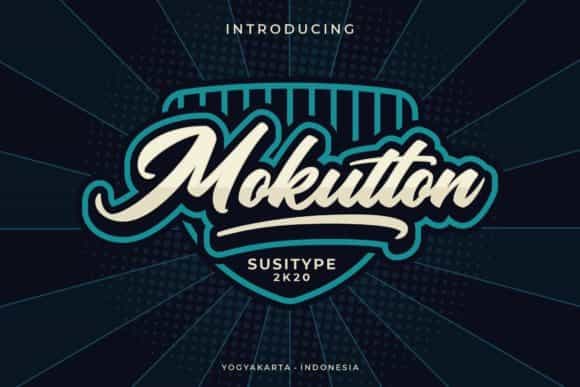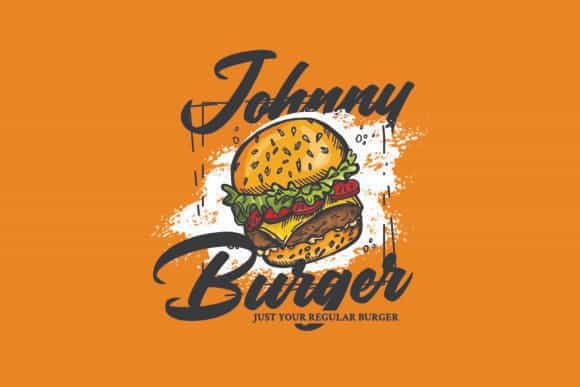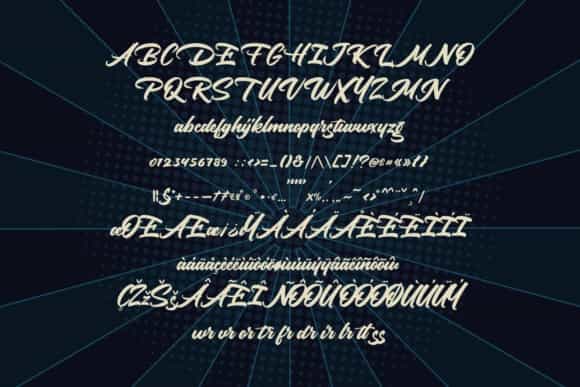
A handwritten script font labeled Mokutton Calligraphy, this font can become the apple of anyone’s eye. It’s high praying monk, but also modern and restoring ancient ways. This beautiful script font is a stylish tribute to the traditions of old handwriting. In this way that font looks stunning! It’s available for free download and design elements at susitype.